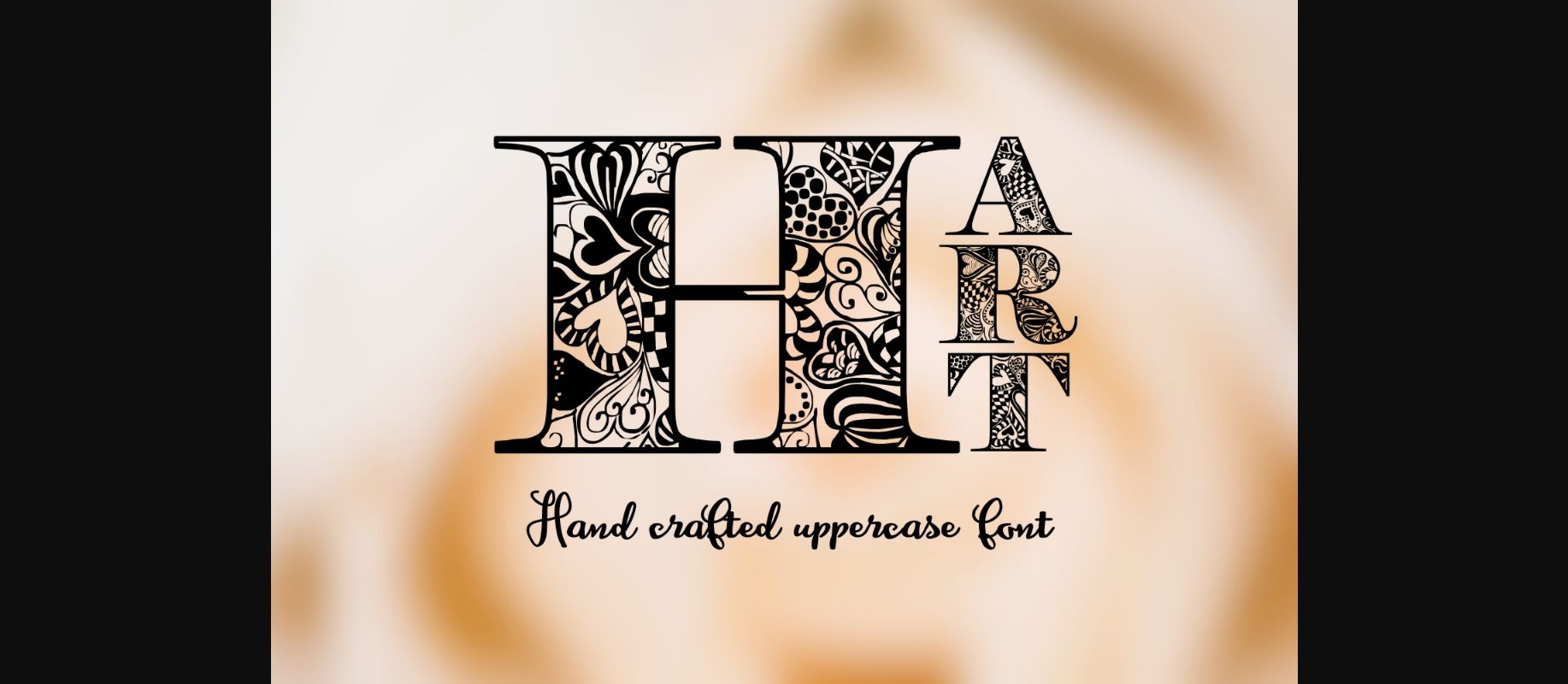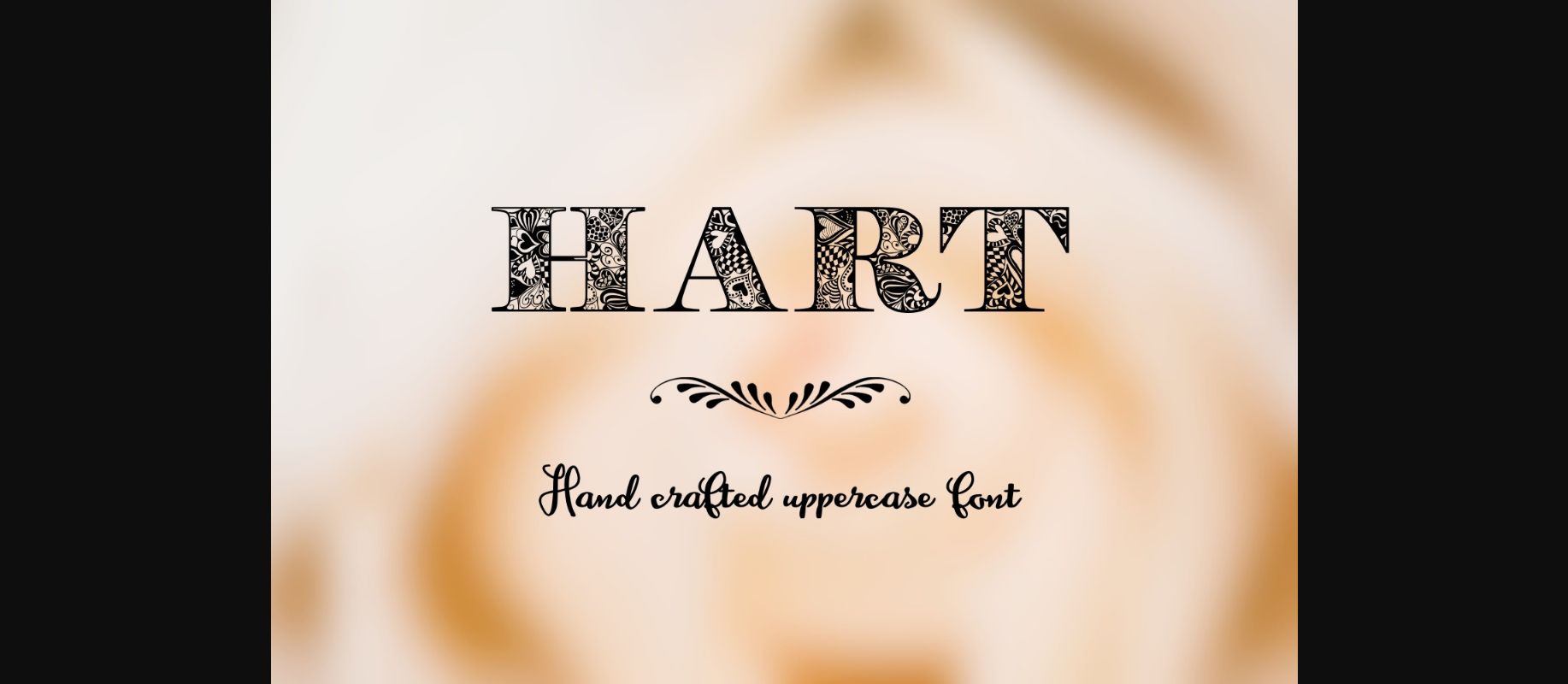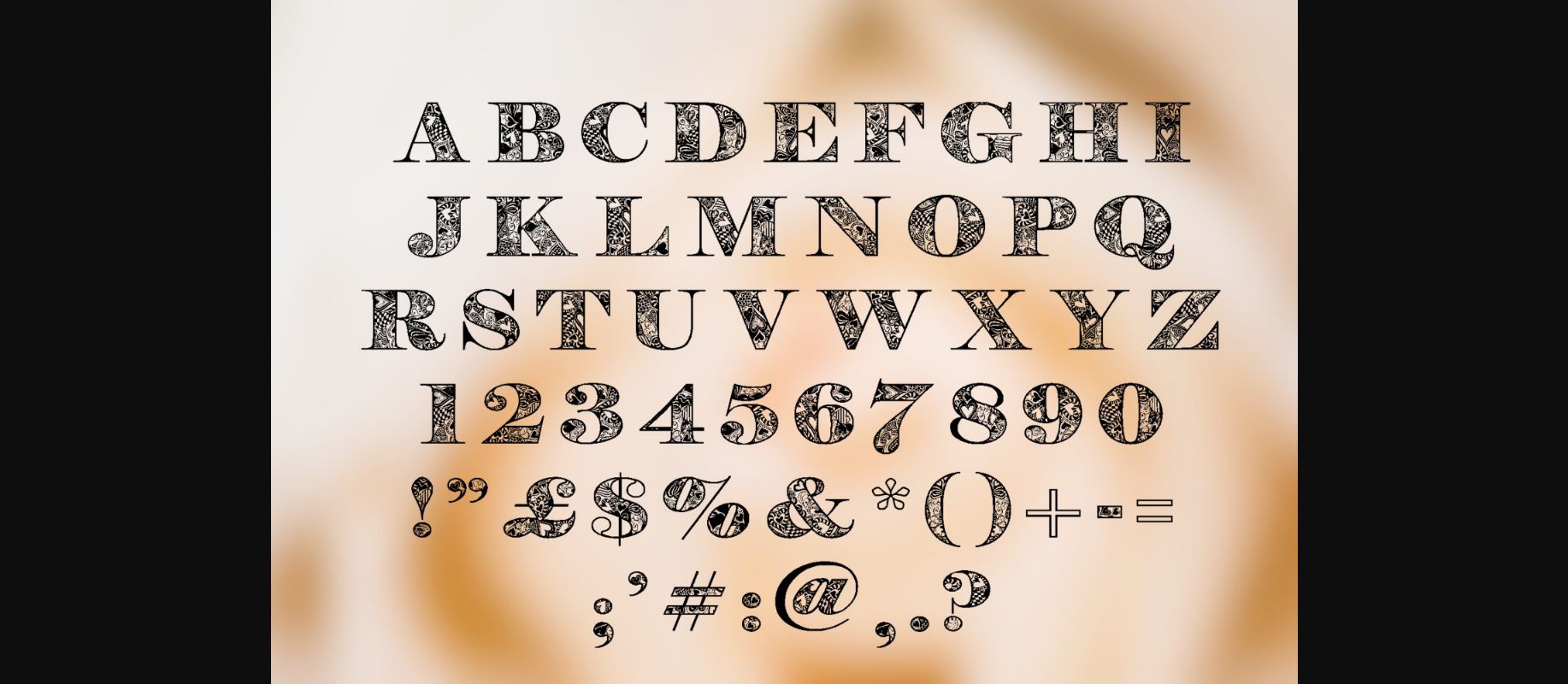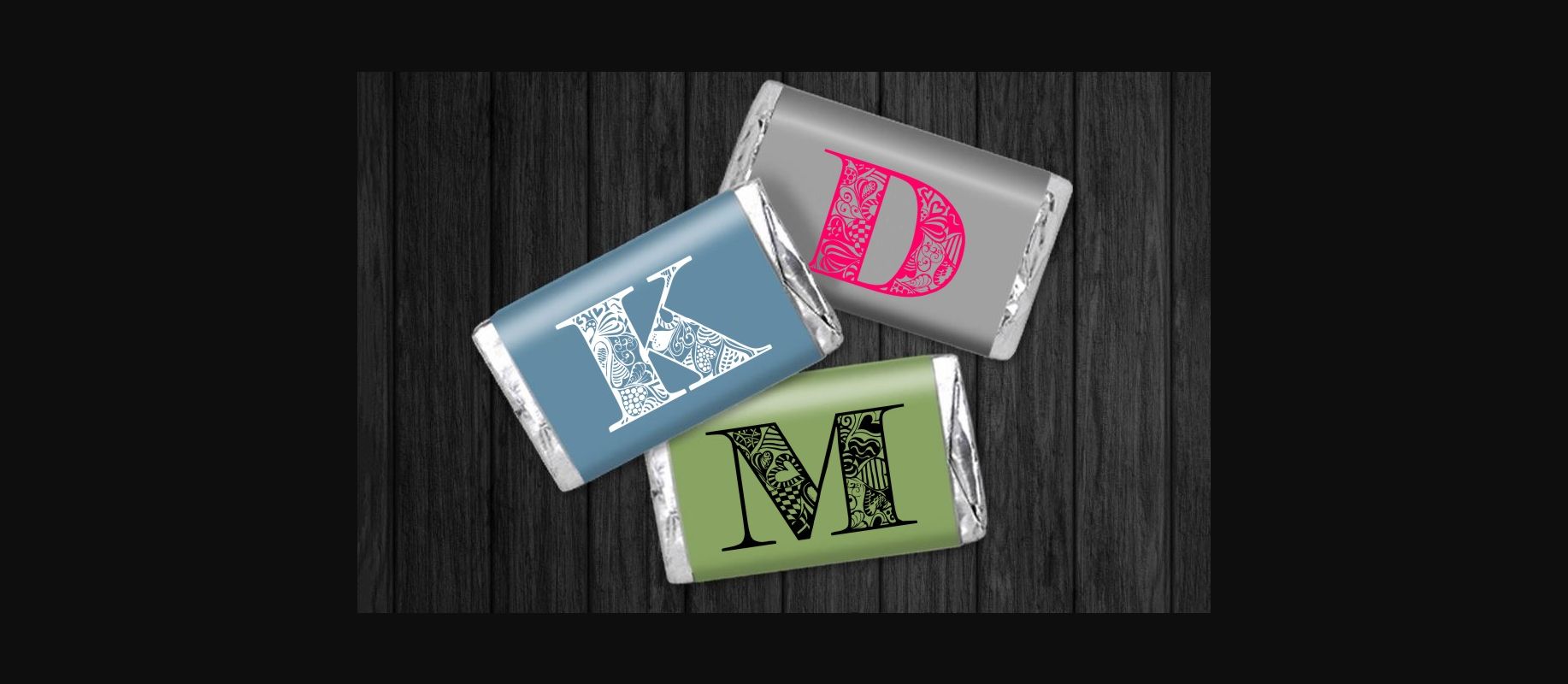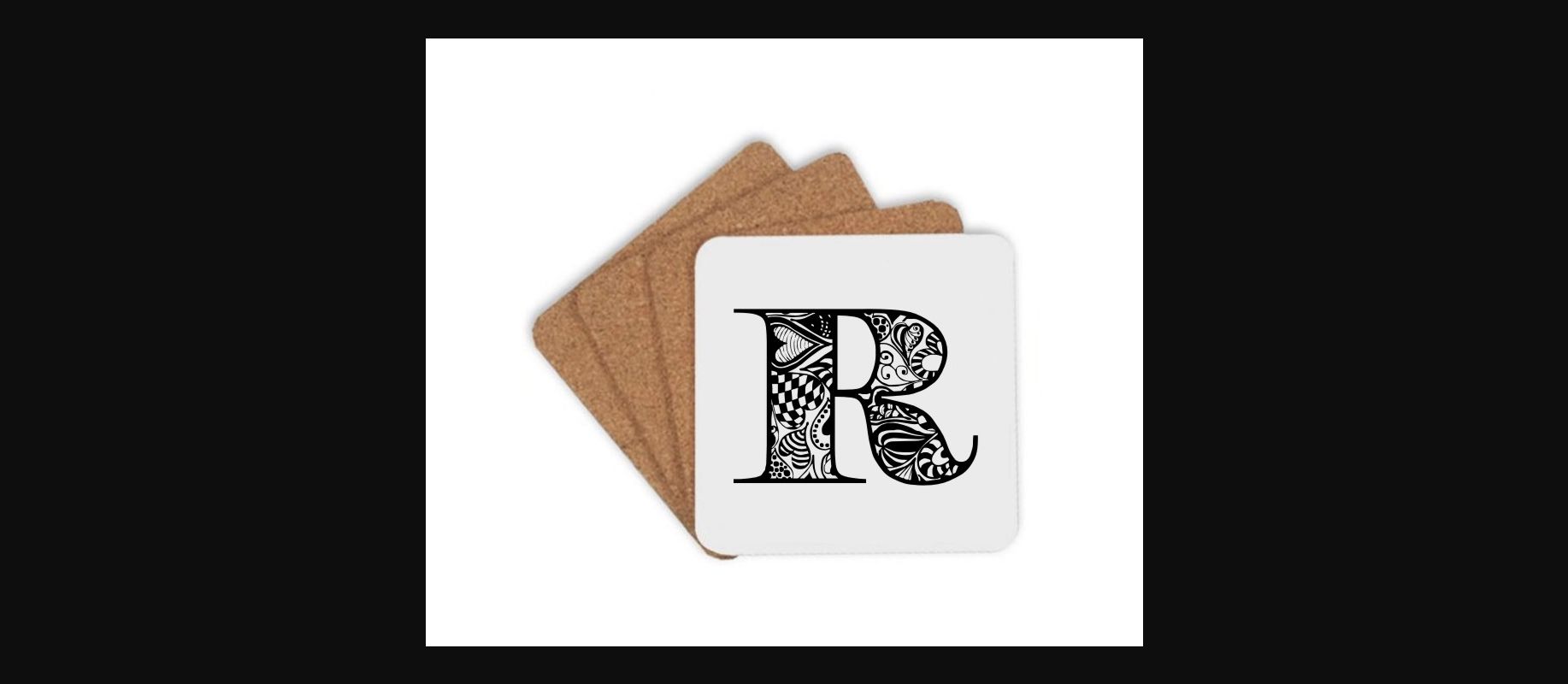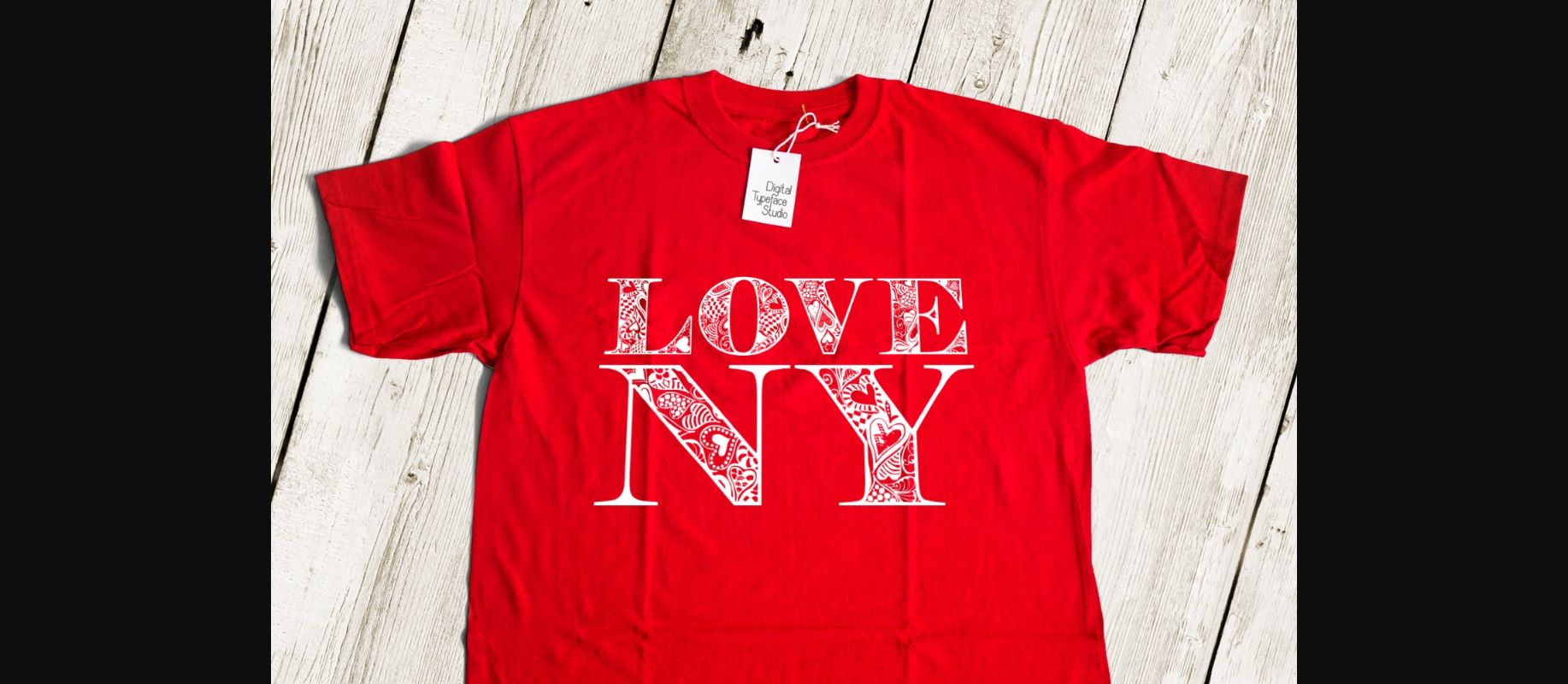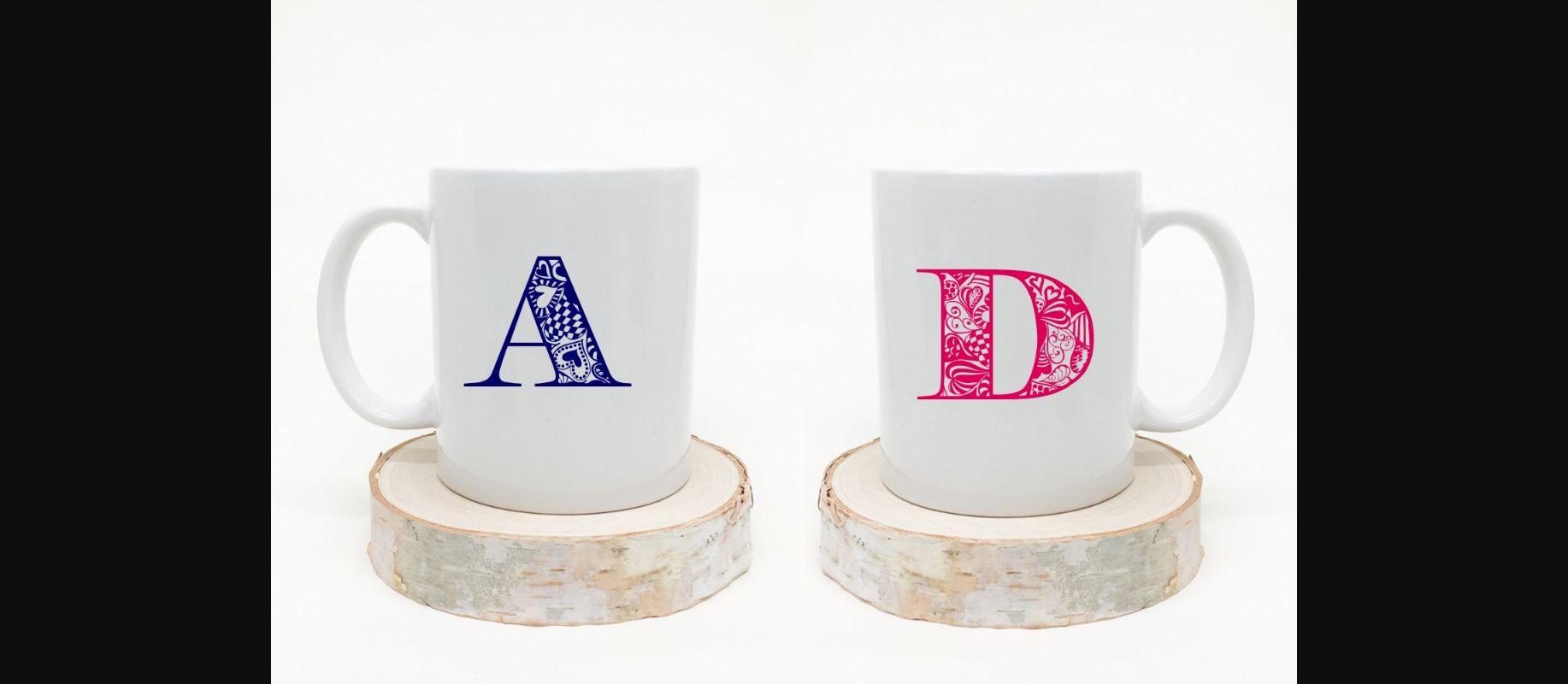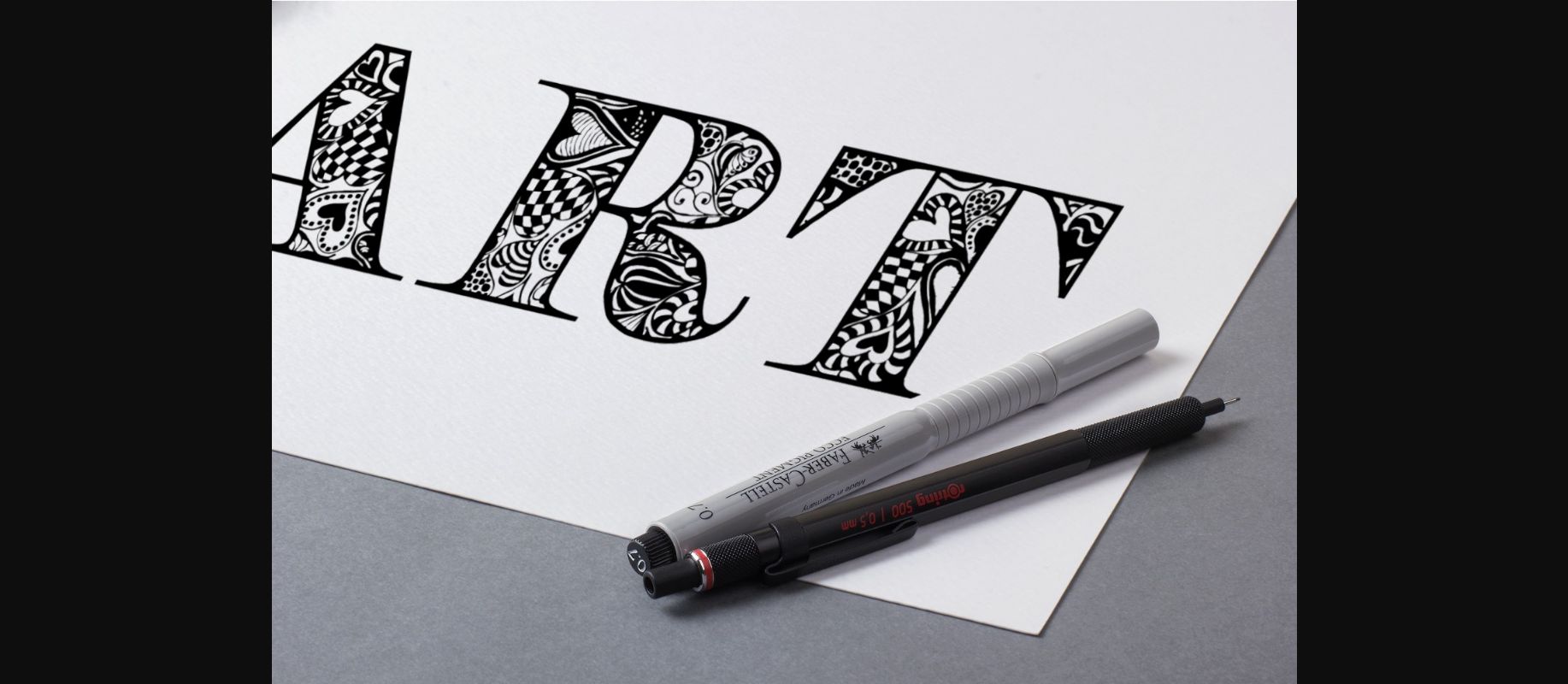
Hart Font
About Hart Font
Hart is a stunning handcrafted, decorative uppercase font that is perfect for giving your designs and crafting projects a ton of texture and charm. This font is useful for monogram purposes, and is capable of giving your content a branded look.